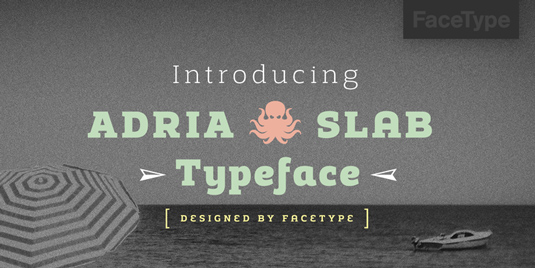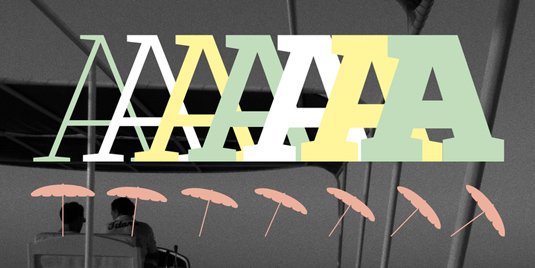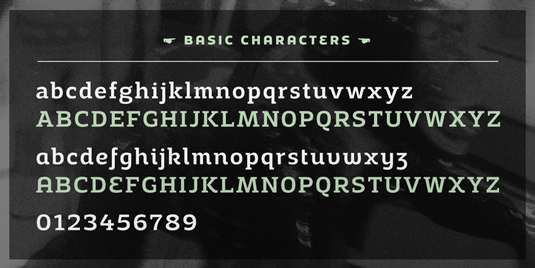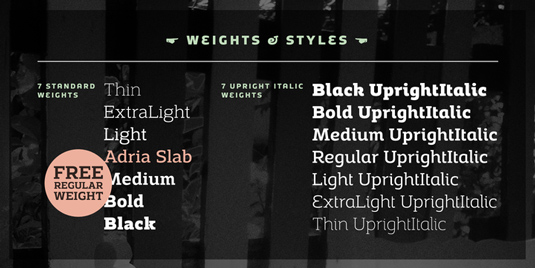
Font of the day: Adria Slab
Adria Slab by Marcus Sterz
A smooth slab serif typeface, Adria Slab was created by designer Marcus Sterz of FaceType. Available in seven weights, the typeface has a vast choice of lining, tabular and old style figures, numerators, denominators, tabular figures, fractions, ligatures, some sweet symbols and even alternate arrows.